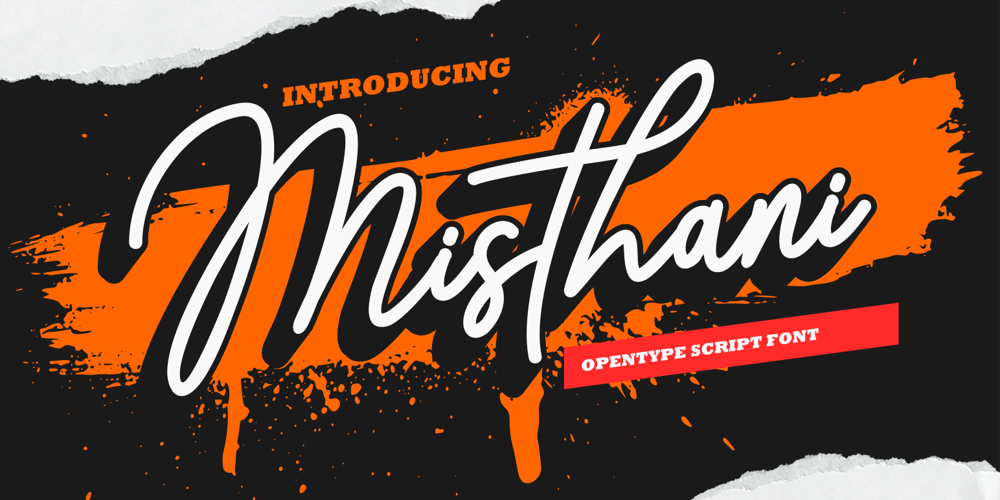
Misthani Font Family was designed by Zaki Muhammad and published by madjack.font. Misthani contains 1 styles and family package options. Misthani is a beautiful and simple handwritten font, contemporary and fashionable, Basketball looks elegant with various designs. This elegant font is easy to read and looks great as a title or body text. This font is suitable for various magazine title designs, social media, branding, wedding invitations, cards, etc. Basketball includes ligatures, capital letters, and alternate letters. You need a program that supports OpenType features such as Adobe Illustrator CS, Adobe Photoshop CC, Adobe Indesign and Corel Draw X6/X7. and you can also access alternative glyphs via Font Book (Mac users) or Windows Character Map (Windows users).